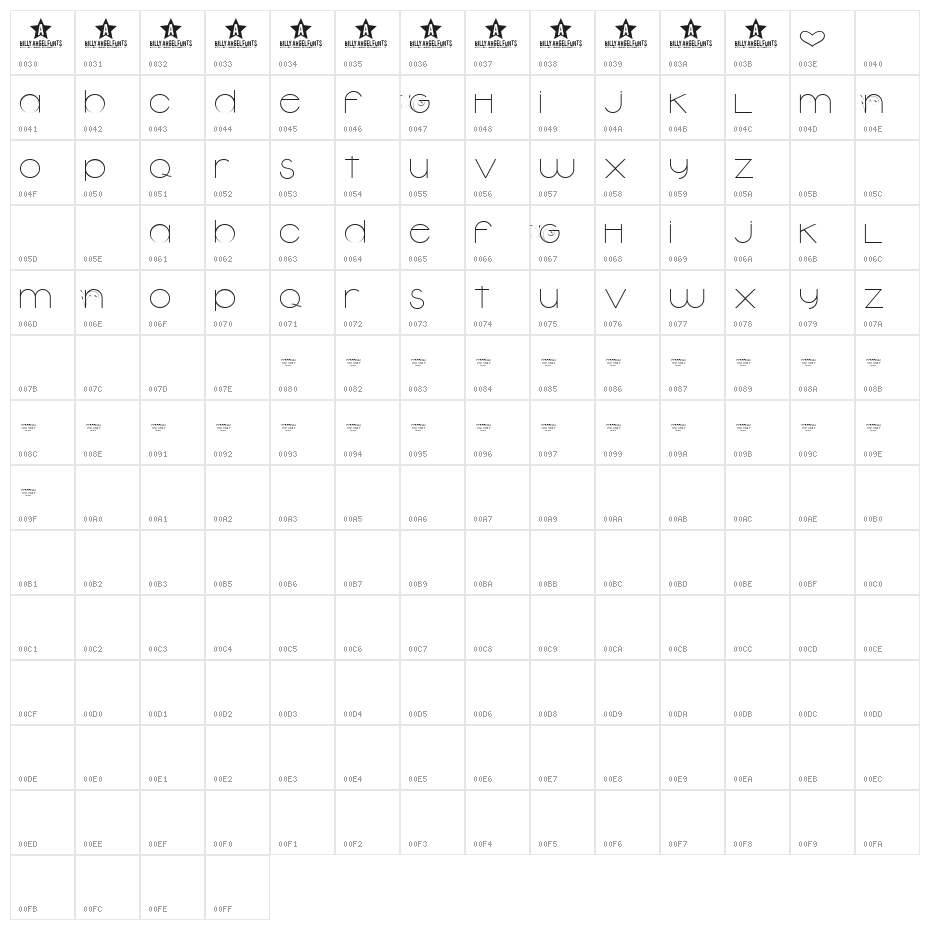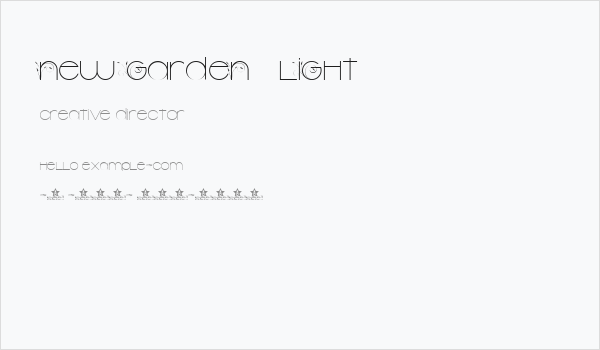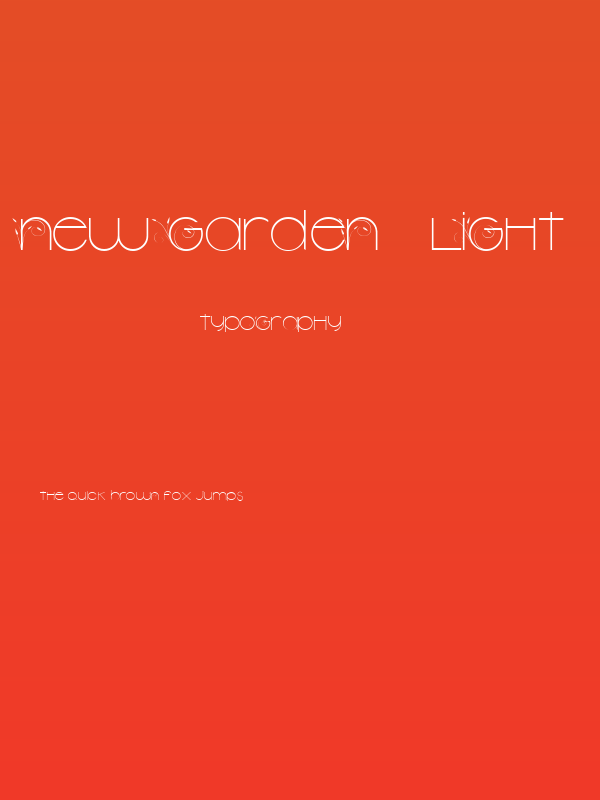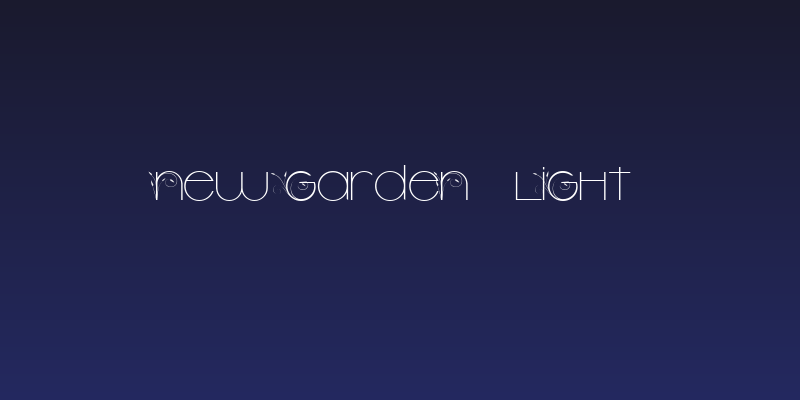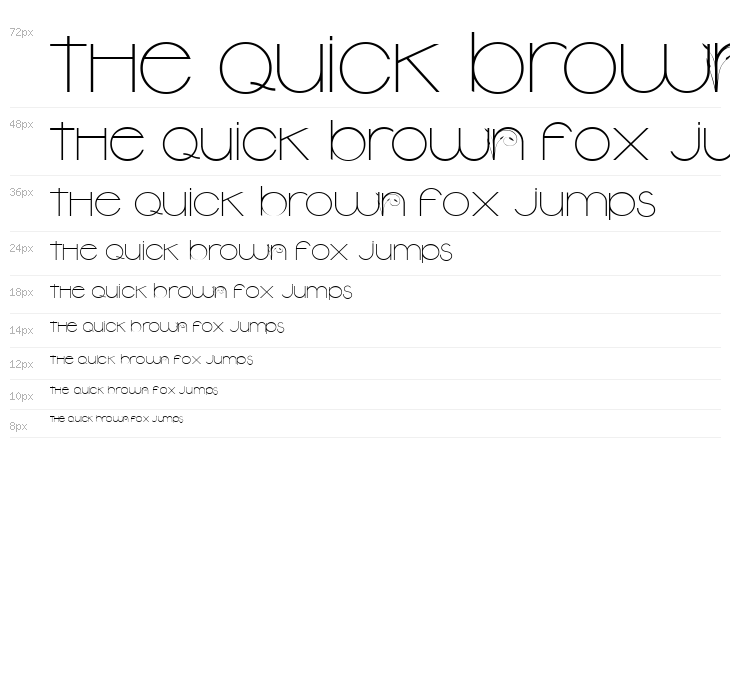
New Garden Light Font
New Garden Light Description
This font features a modern and elegant design with a unique blend of simplicity and decorative elements. The characters are primarily thin and elongated, giving a sleek and sophisticated appearance. Notably, some letters incorporate subtle ornamental swirls, adding a touch of artistic flair without overwhelming the overall clean aesthetic. The uppercase and lowercase letters maintain a consistent style, ensuring a harmonious look across different text compositions. This font is well-suited for projects that require a refined and contemporary touch, such as branding, invitations, or editorial design.
| Proposed Projects | Ideal for branding, invitations, editorial design, and any project needing a refined, contemporary touch. |